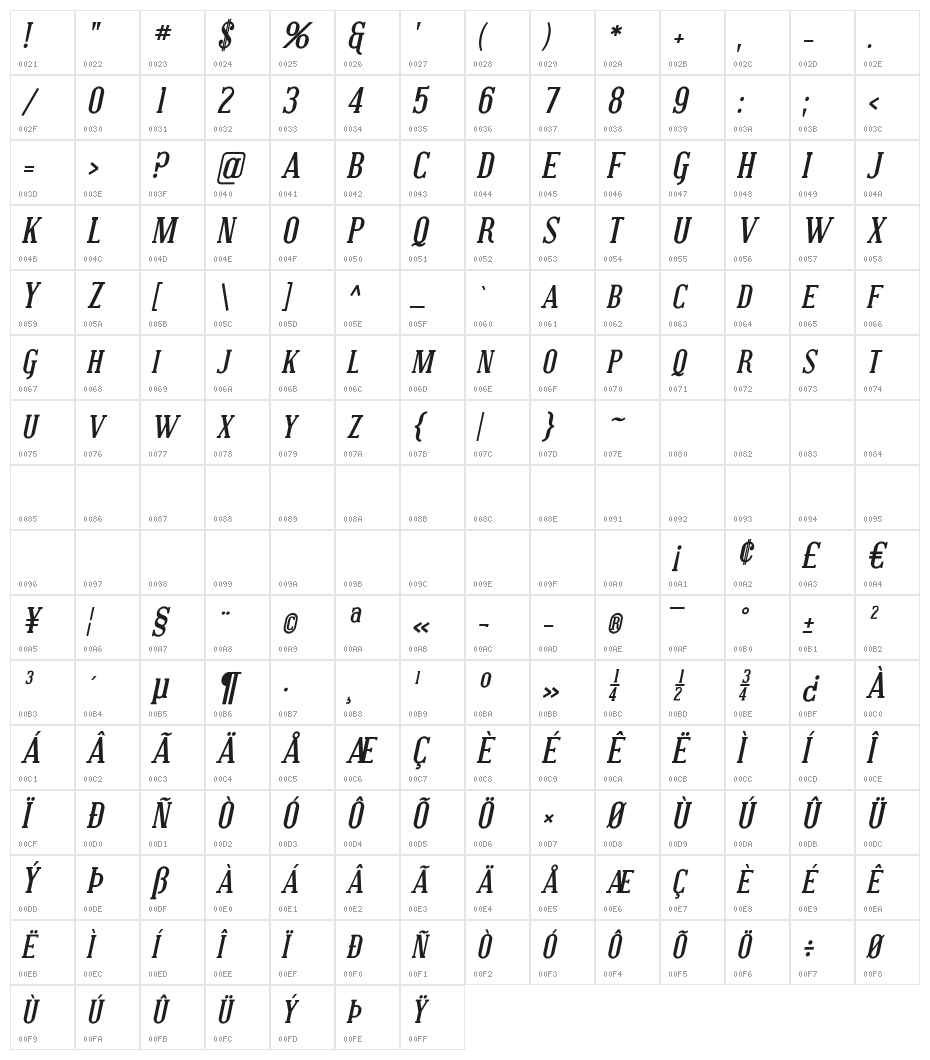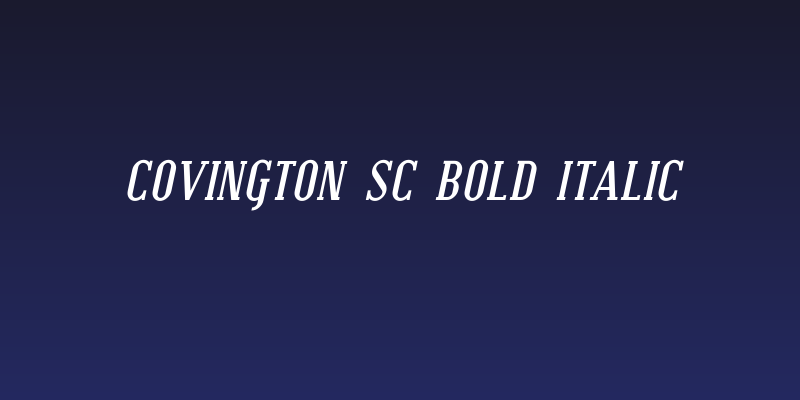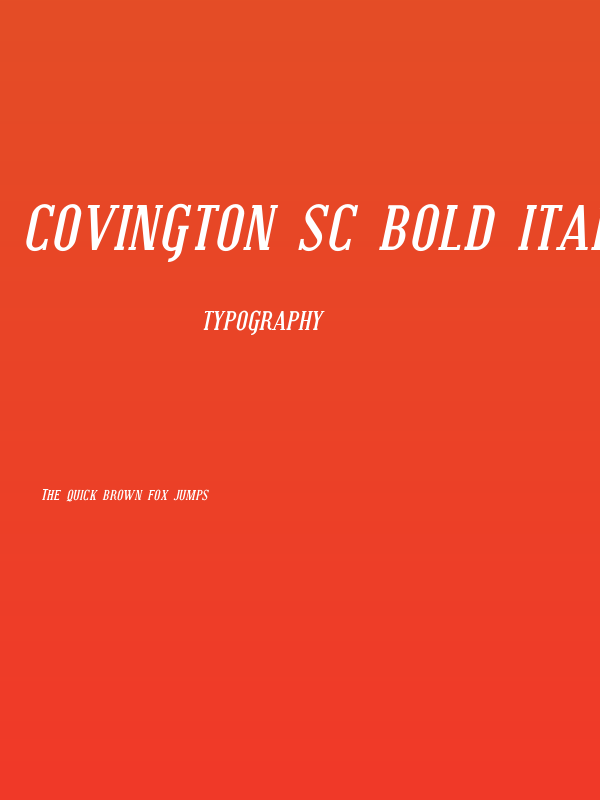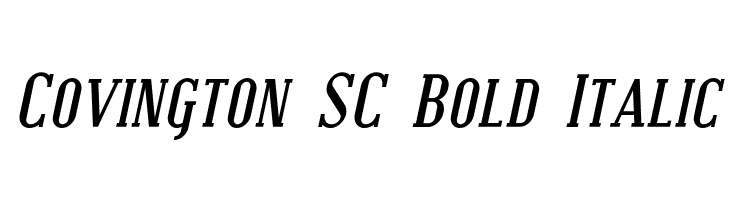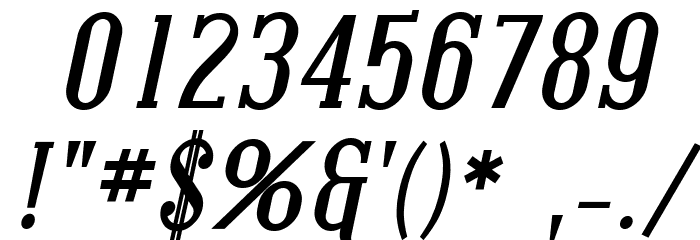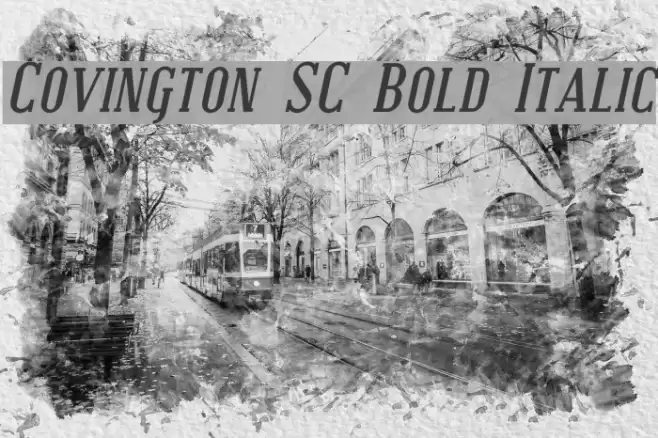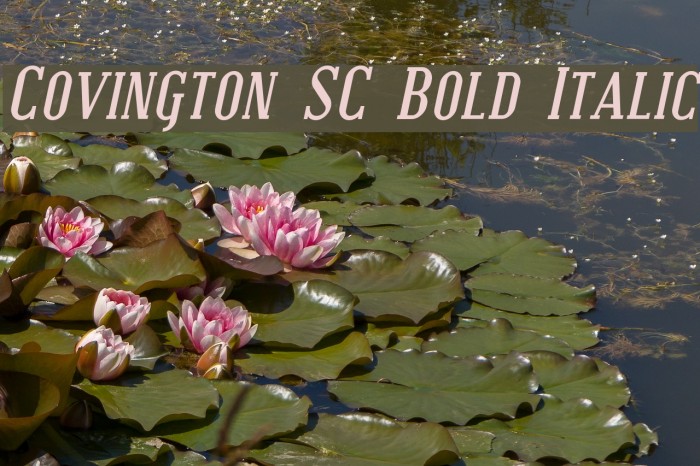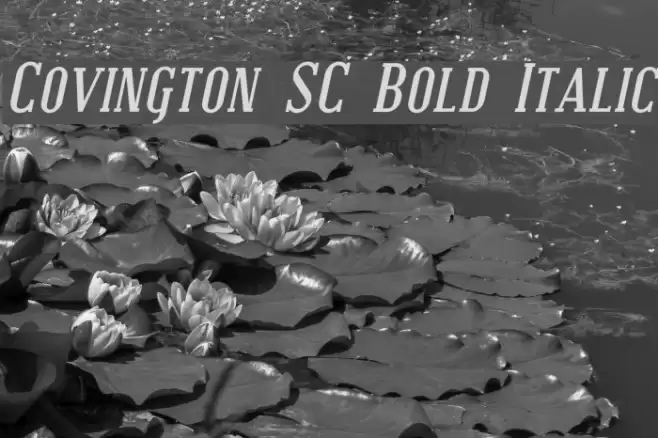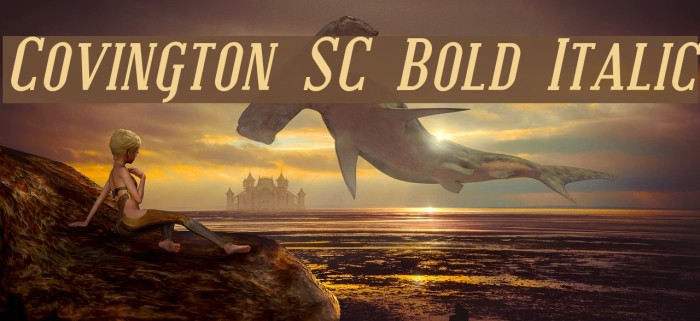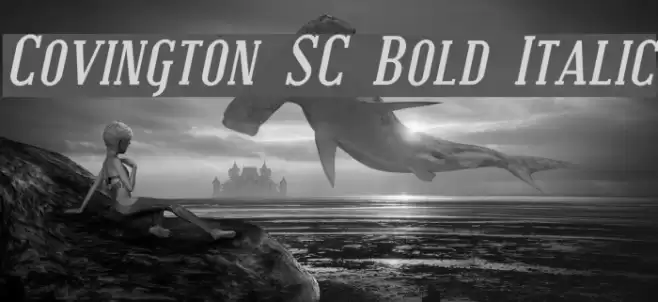
Covington SC Bold Italic Font
This font exhibits a bold and italicized style, characterized by its strong and dynamic presence. The letters are slightly slanted, adding a sense of motion and elegance. The strokes are thick and consistent, providing a robust appearance. The serifs are pronounced, contributing to a classic and authoritative look. The numerals and special characters maintain the same boldness and slant, ensuring uniformity across all glyphs. This font is designed to stand out, making it ideal for impactful headlines and statements.
| Proposed Projects | Ideal for headlines, posters, branding materials, and any design requiring a bold statement. |